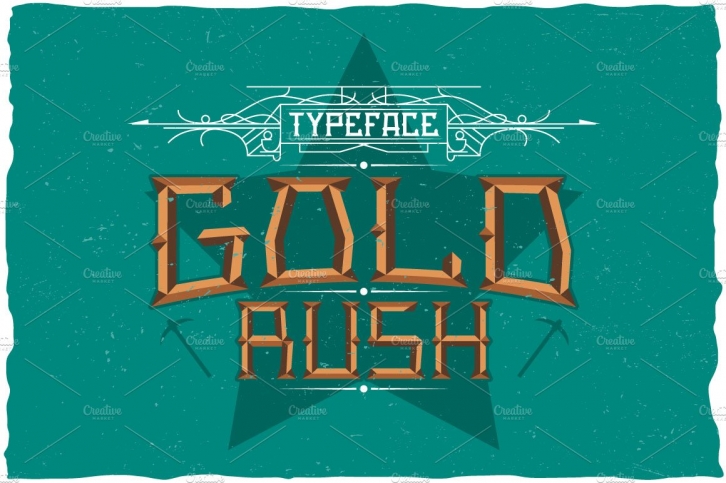
Here is a classic look label typeface named "GoldRush". It's made in vintage label style. Font is perfect for any labels design.
- 4 styles of font, named GoldRush Aged, GoldRush DarkFX, GoldRush LightFX, GoldRush Regular.
- You can mix these styles how do you like. Because in complect are included additional fonts - GoldRush DarkFX, GoldRush LightFX. For example: type your phrase in Regular, copy and past at same position and change font to Dark FX. Copy and paste at the same position and change font to Light FX. You will get Alcohol font with volueme dark and light effect! And you can change color of each element!